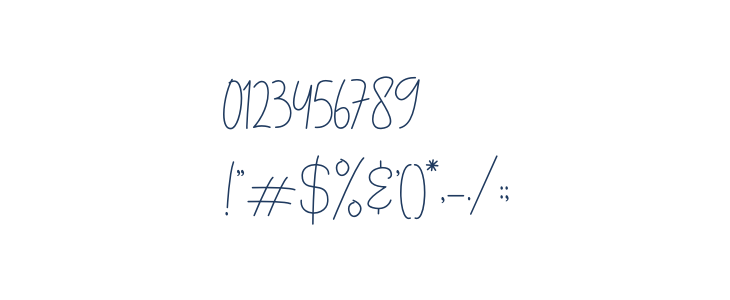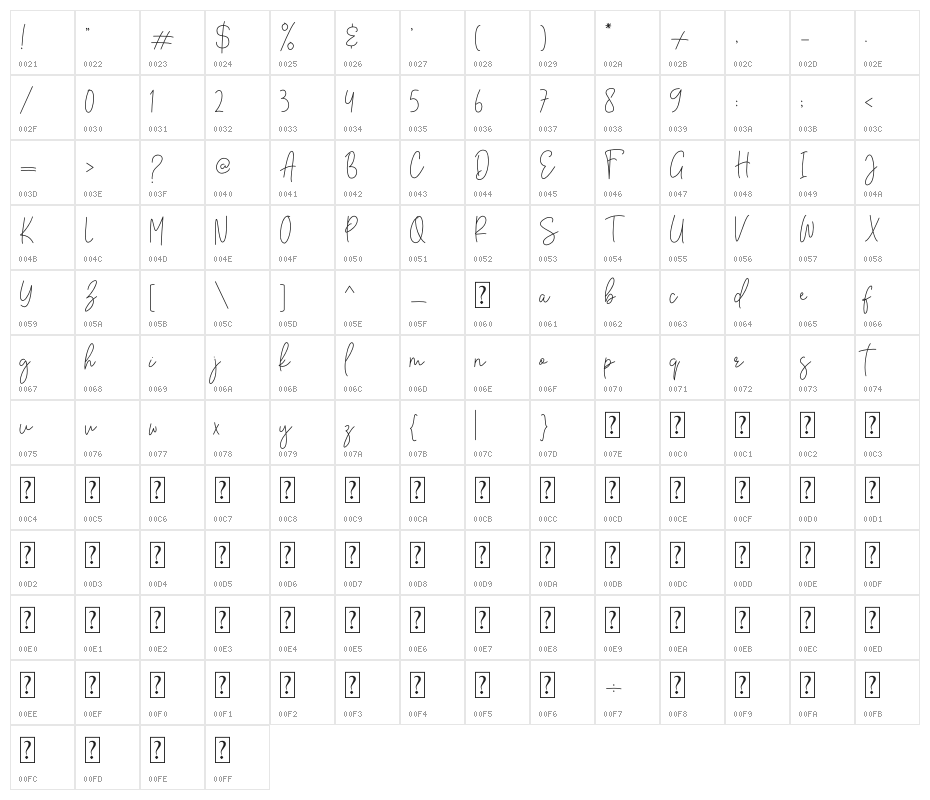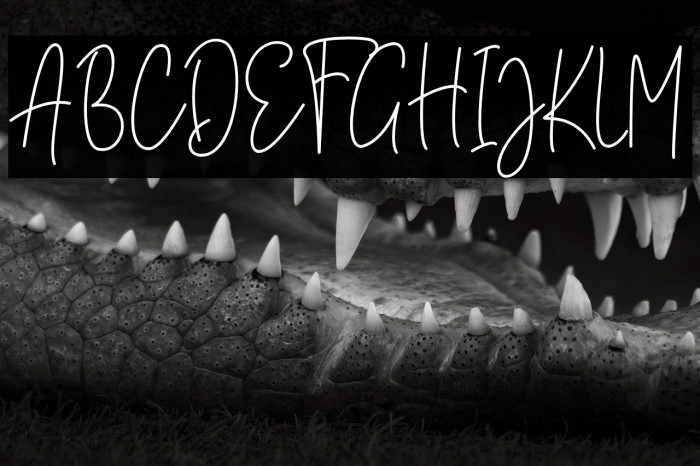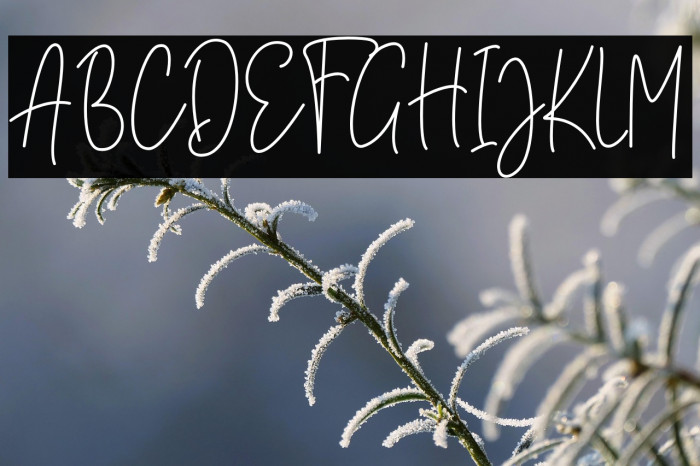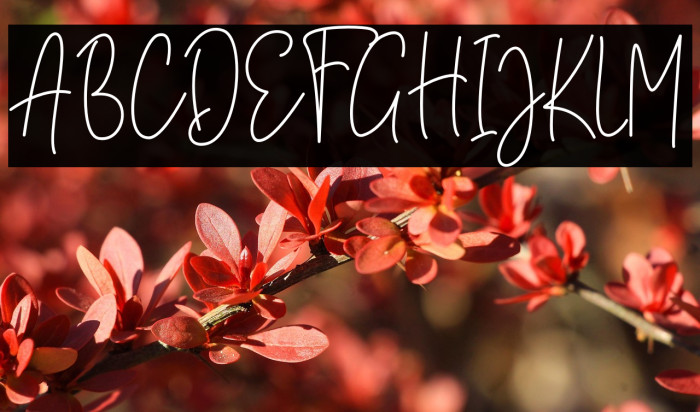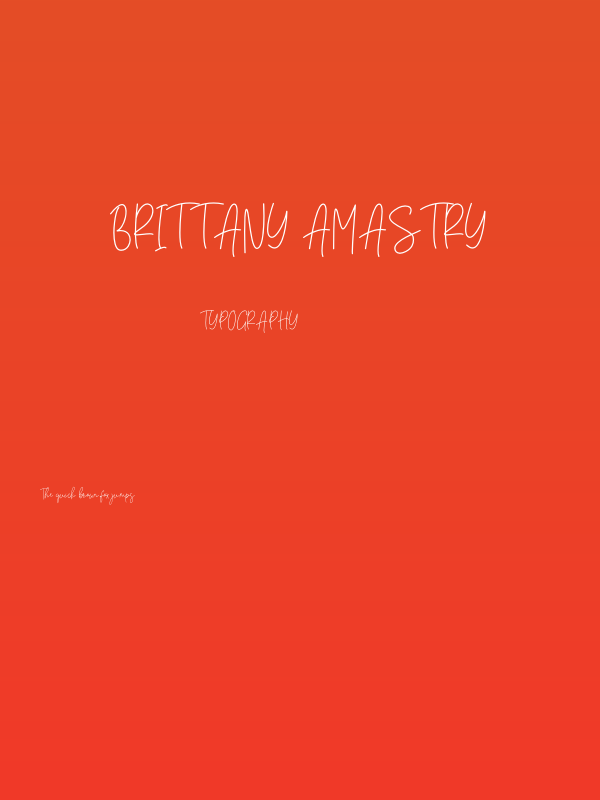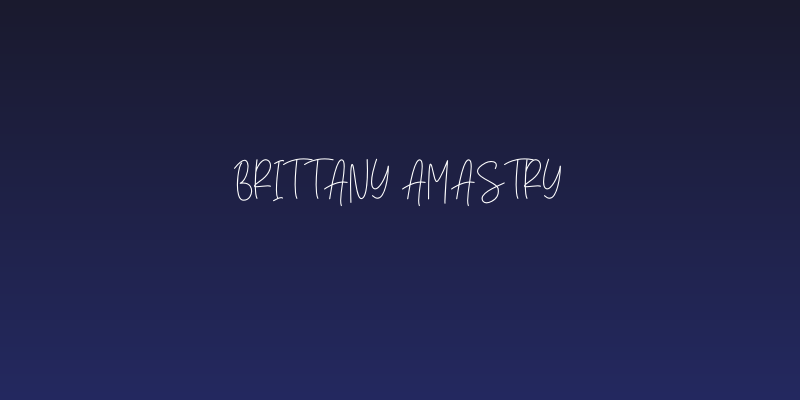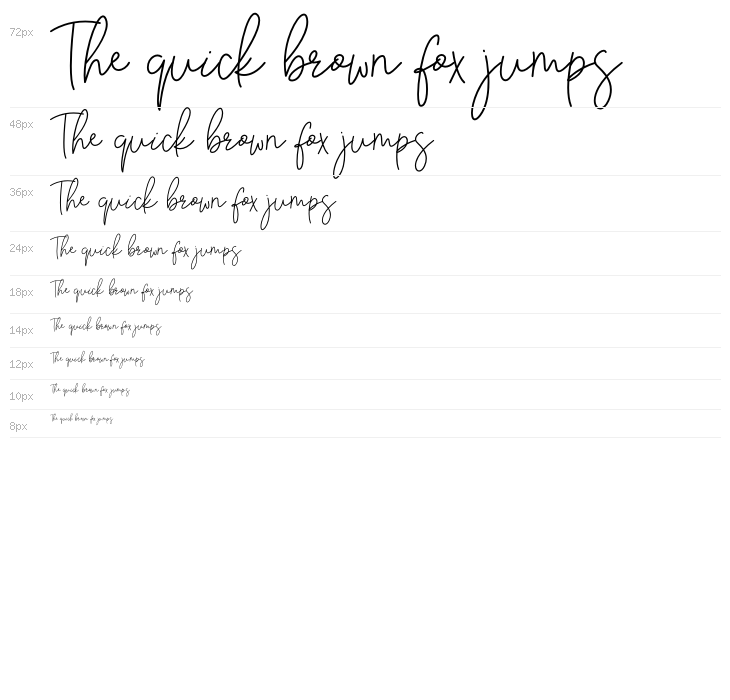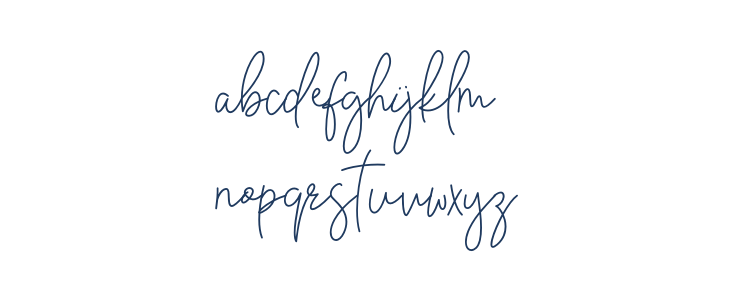
Brittany Amastry Font
Brittany Amastry Description
This font features a flowing, handwritten style with a modern and elegant touch. The characters are connected in a cursive manner, giving it a personal and artistic feel. The strokes are thin and consistent, providing a delicate appearance. The uppercase letters are tall and slightly narrow, while the lowercase letters maintain a smooth and fluid motion. The numbers and special characters are designed to complement the overall aesthetic, ensuring a cohesive look. This font is ideal for projects that require a personal or creative touch, such as invitations, greeting cards, or branding materials.
| Proposed Projects | Ideal for wedding invitations, personal branding, greeting cards, and artistic projects. |